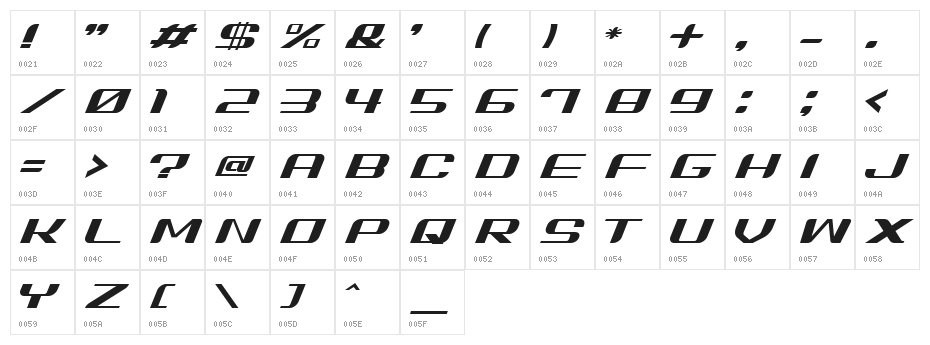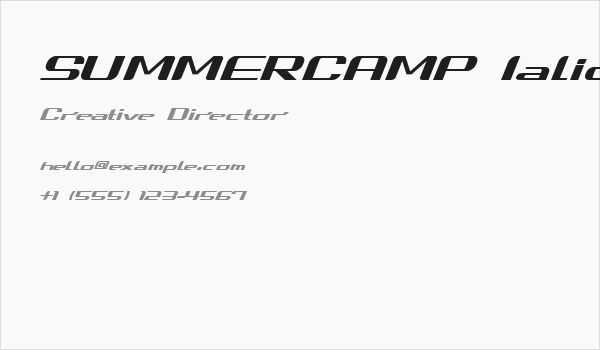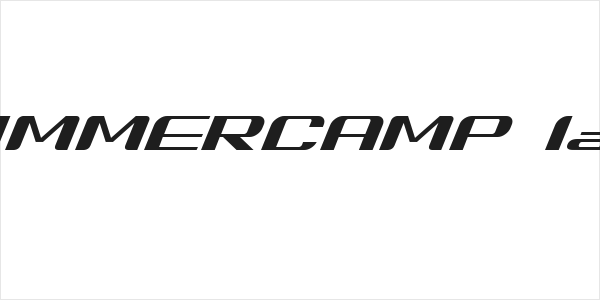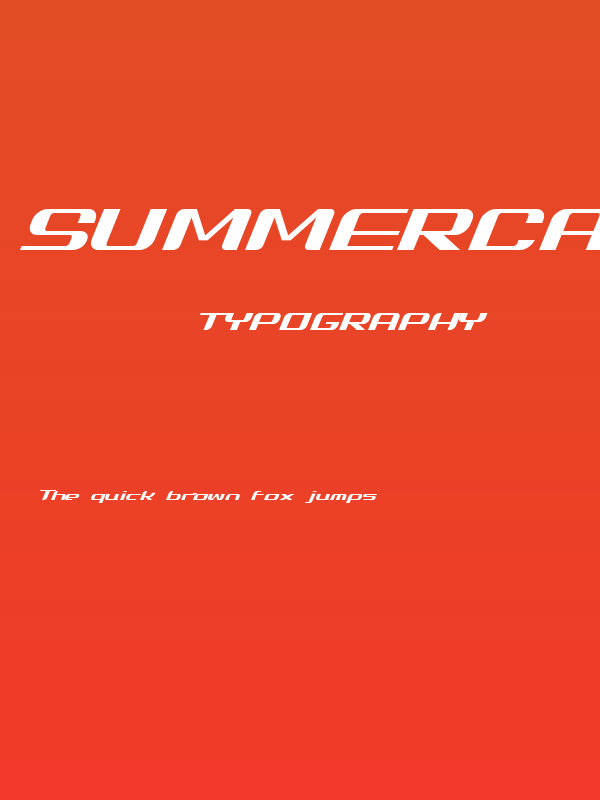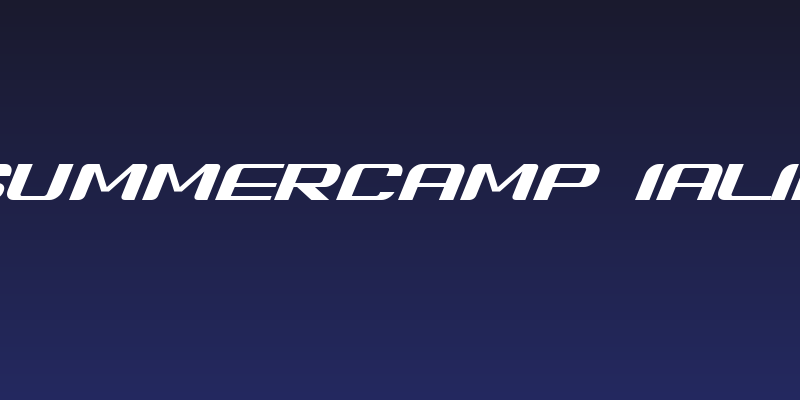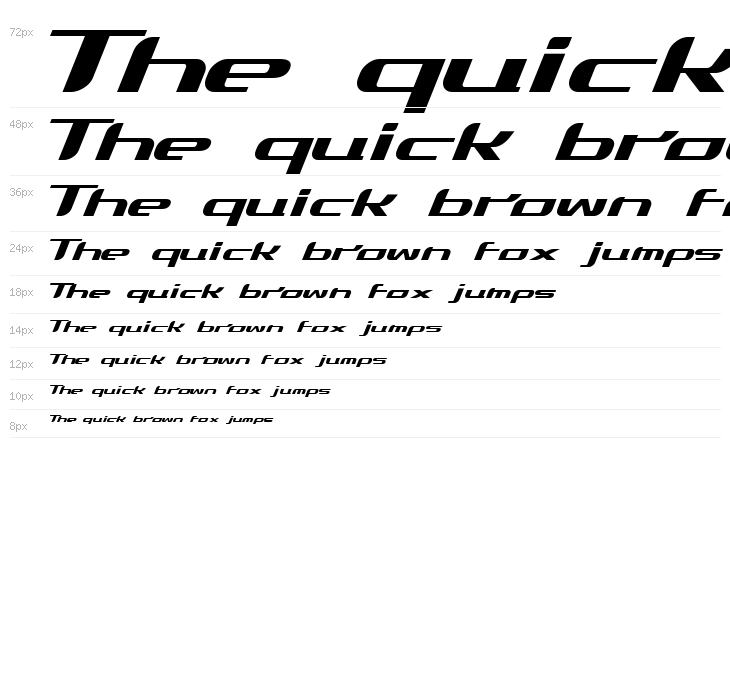
SUMMERCAMP Ialic Font
SUMMERCAMP Ialic Description
This font features a dynamic and modern italic style with a distinct slant, giving it a sense of motion and speed. The characters are bold and angular, with sharp edges and a futuristic appearance. The uppercase and lowercase letters maintain a consistent style, with the lowercase letters slightly more compact. The numerals are clear and easy to read, matching the overall aesthetic. Special characters are included, maintaining the same angular and sleek design. This font is ideal for projects that require a modern and energetic look.
| Proposed Projects | Ideal for sports branding, automotive designs, tech-related projects, and dynamic advertising. |